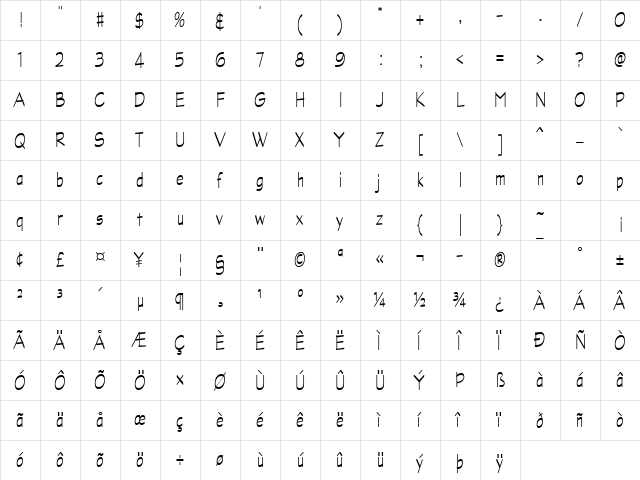
Graphite Light Narrow ATT Regular
Design Context for Graphite Light Narrow ATT Typeface
Graphite Light Narrow ATT offers clean, dependable letterforms without strong stylistic allegiance, making it a practical choice for designers who need flexibility. The delicate stroke weight brings airiness and refinement to layouts. The condensed width makes it efficient for tight spaces without sacrificing legibility.